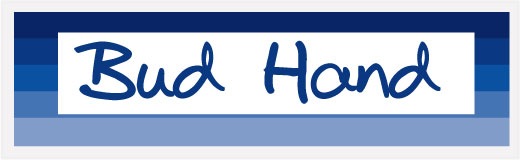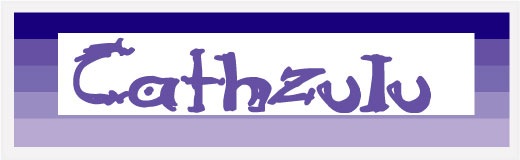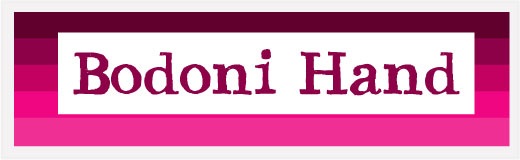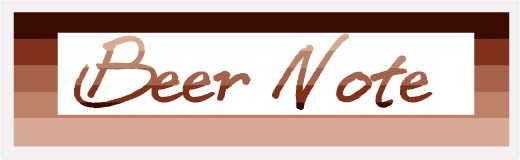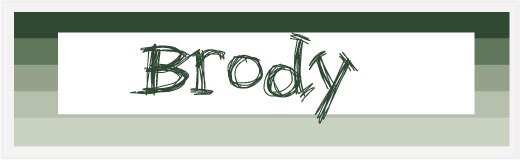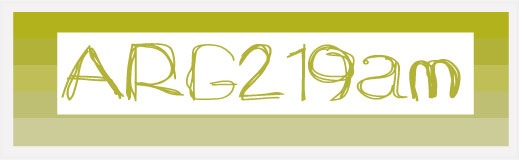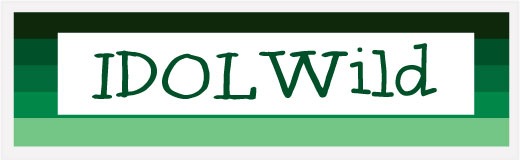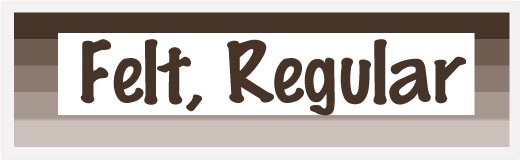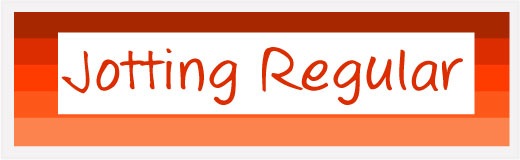
60 Amazing Free Handwriting fonts for professional Handwriting and web typography. Fonts are very important elements in modern web and graphic design. Here are some of the most inspirational free handwriting fonts you can use for stylish design in Print or web. This cool Handwriting font collection includes free true type fonts, serif fonts, sans serif, sketch and calligraphic fonts in handwriting version. I hope these will help you in creating some exceptional work.
2.James Fedaro: Free Handwriting Font
3.Jellyka:Free Handwriting Font
4.Hand of sean:Free Handwriting Font
5.Handwriting Font:Lewis Hand Font
6.Journal: Free Handwriting Font
7.Handwriting Font:Love Ya Like A Sister
8.Thurston Handwriting Font
9.Handwriting Font:KiddieGrinder
10.SandroAl Handwriting Font
11.Handwriting Font:Pecita
12.DENNE Sketchy Handwriting Font
13.Handwriting Font:Chickenhawk
14.Cool Handwriting Font:Floydian
15.Handwriting Font:ZeitGeisterbahn
16.Hand Vetica: Free Handwriting Font
17. Angelina: Cool Handwriting Font
18.Handwriting Font:Christopher Hand
19.Handwriting Font-King CooL KC
20.Handwriting Font-Hand test
21.Handwriting Font-Ariapenciroman
22.Handwriting Font-Kraboudja, Regular
23.Handwriting Font-minus, Regular
24.Handwriting Font-The quiet scream
25.Handwriting Font-Desyrel
26.Handwriting Font-HarabaraHand
27.Handwriting Font-VAG-Hand Written
28.Daniel: Free Handwriting Font
29.Pisan:Cool Handwriting Font For Free
30.Free Handwriting Font:Scrawl
31.Handwriting Font-Idol wild
32.Beer Note: Cute Handwriting Font
33.Positive-A: Handwriting Font
34.Handwriting Font:Steed
35.Handwriting Font-The Quiet Scream
36.Handwriting Font-Alko
37.Handwriting Font-Abiscuos
38.Bud Hand:Handwriting Font
39.Boring Boring: Free Handwriting Font
40.Roughage: Cool Handwriting Font
41.Handwriting Font:Brody
42.Handwriting Font-Jotting, Regular
43.Handwriting Font-Flim-Flam, Normal
44.Handwriting Font-Bodoni Hand
45.Czaristite: Handwriting Font
46.Raslani American letters Handwriting
47.Handwriting Font-Cutty Fruty, Regular
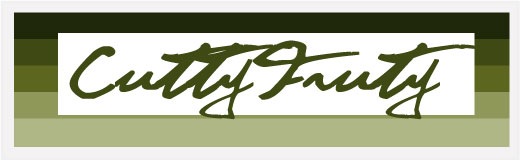
48.Sweeep:Free Handwriting Font
49.Handwriting Font-Blackout Serif
50.Handwriting Font-Cathzulu, Regular
51.Sketchy, Regular: Free Handwriting Font
52.Sheriff, Sheriff: Free Handwriting Font
53.Handwriting Font-Digital Kauno
54.Handwriting Font-Felt, Regular
55.Joint: Free Handwriting Font
56.Handwriting Font-Juliet
57.Handwriting Font-Marcelle
58.Stereo Hifi: Cool Handwriting Font
59.Handwriting Font-Vargas
60.Handwriting Font-ARG219am, Medium